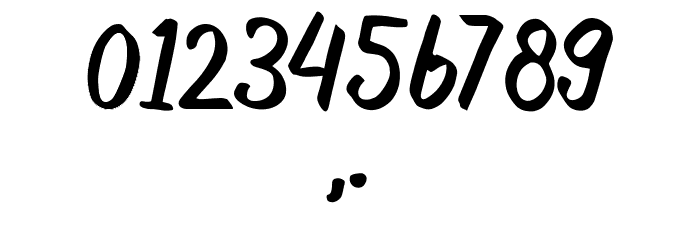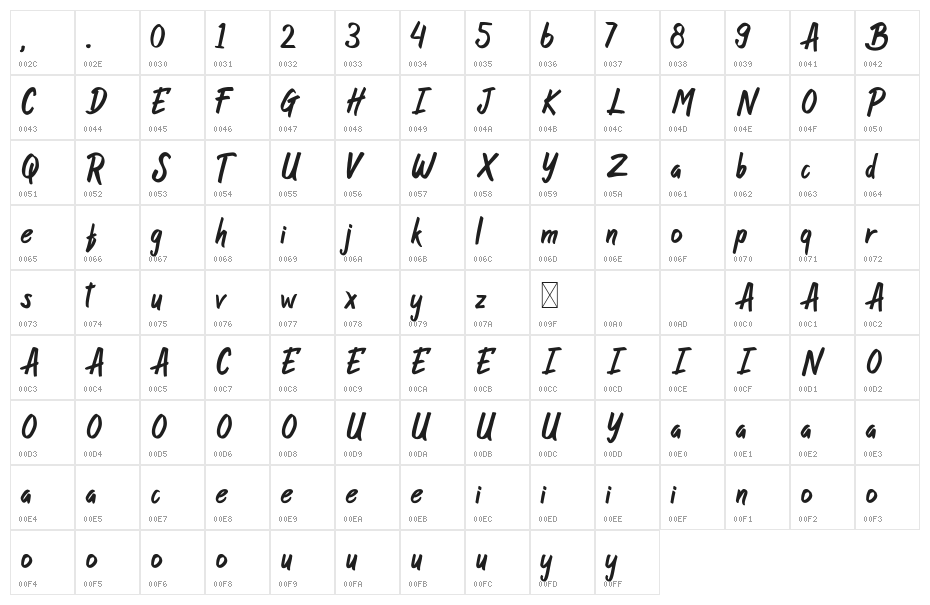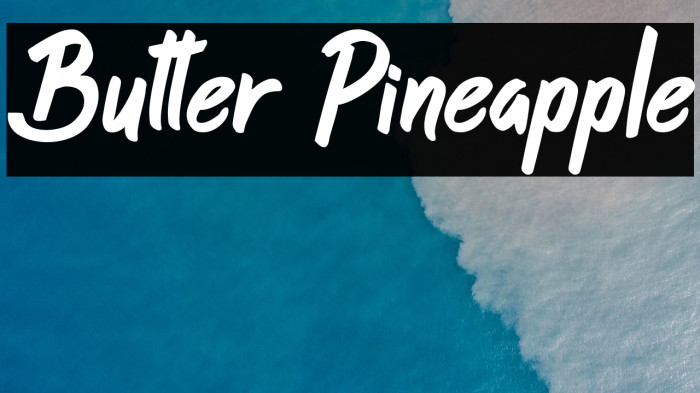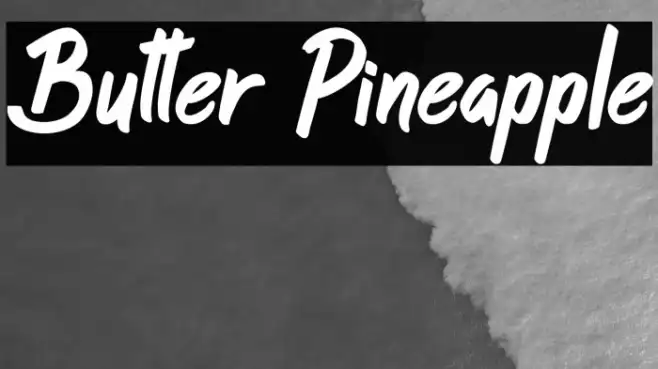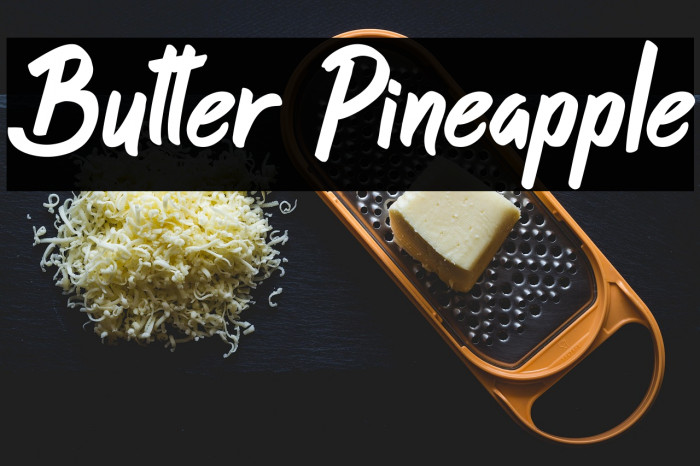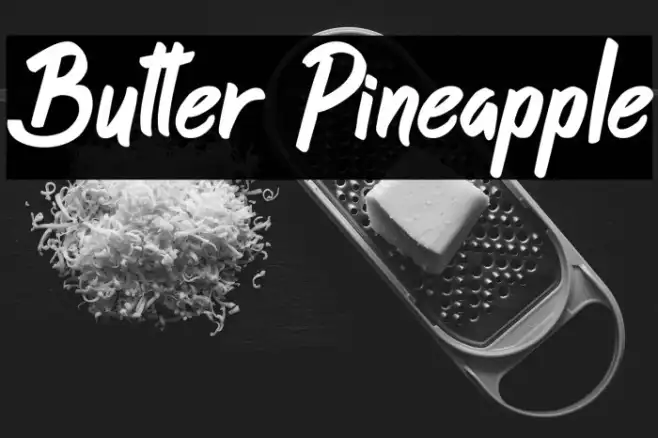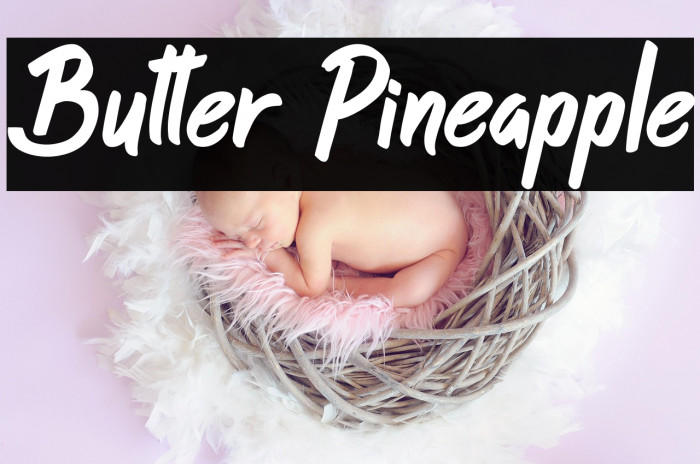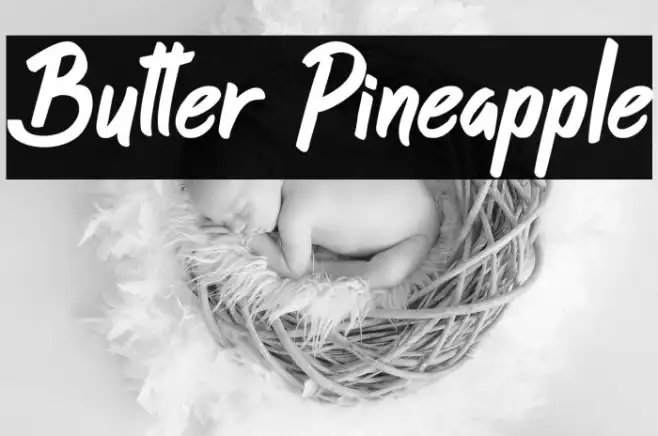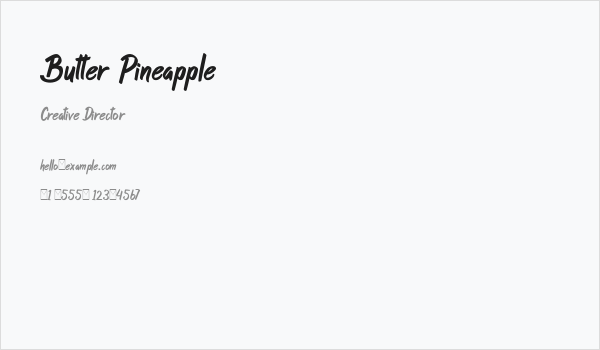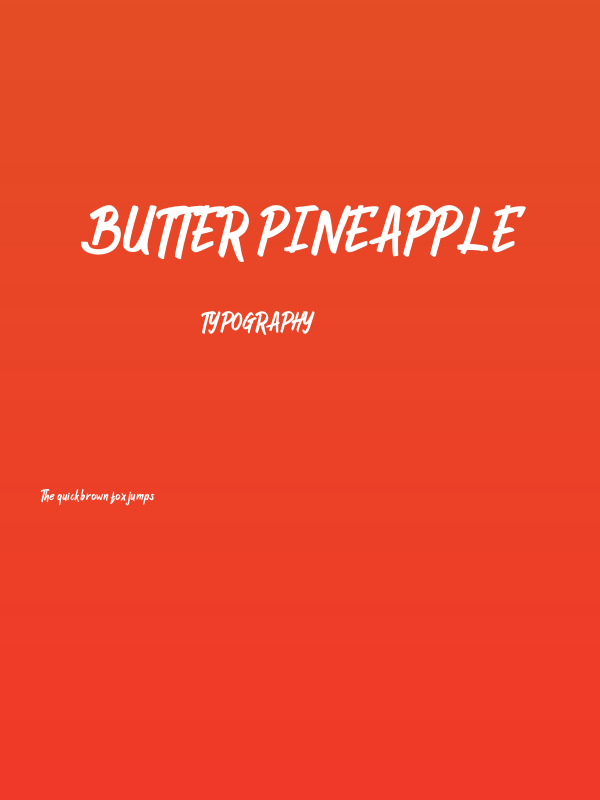
Butter Pineapple Font
Butter Pineapple Description
This font exhibits a lively and energetic style, characterized by its bold and flowing script. The letters are slightly slanted, giving a sense of movement and dynamism. The strokes are thick and consistent, providing a strong visual impact. The uppercase letters are prominent and well-defined, while the lowercase letters maintain a playful and casual appearance. The numerals are clear and easy to read, matching the overall aesthetic of the font. Special characters are included, maintaining the same bold and expressive style. This font is ideal for projects that require a touch of personality and flair.